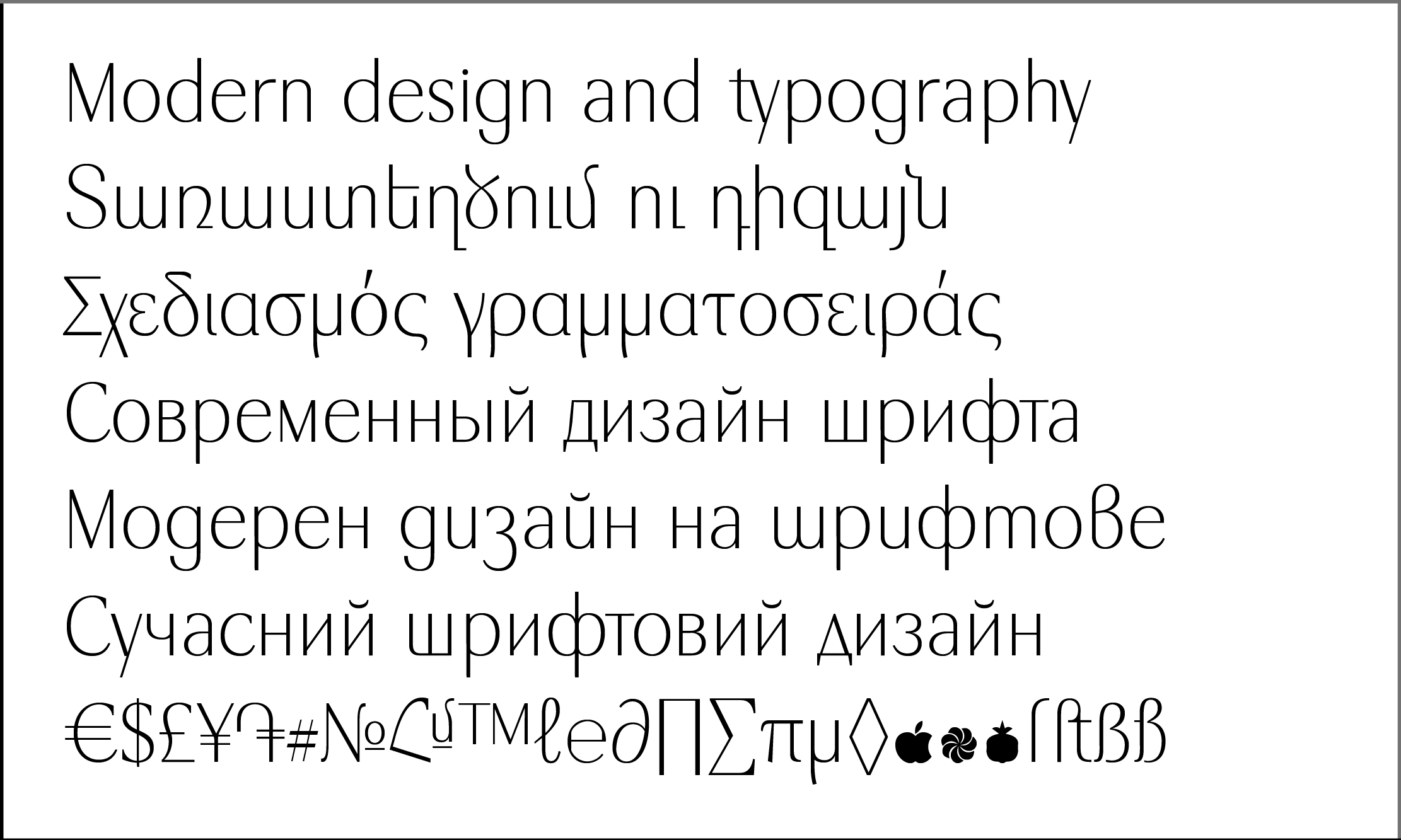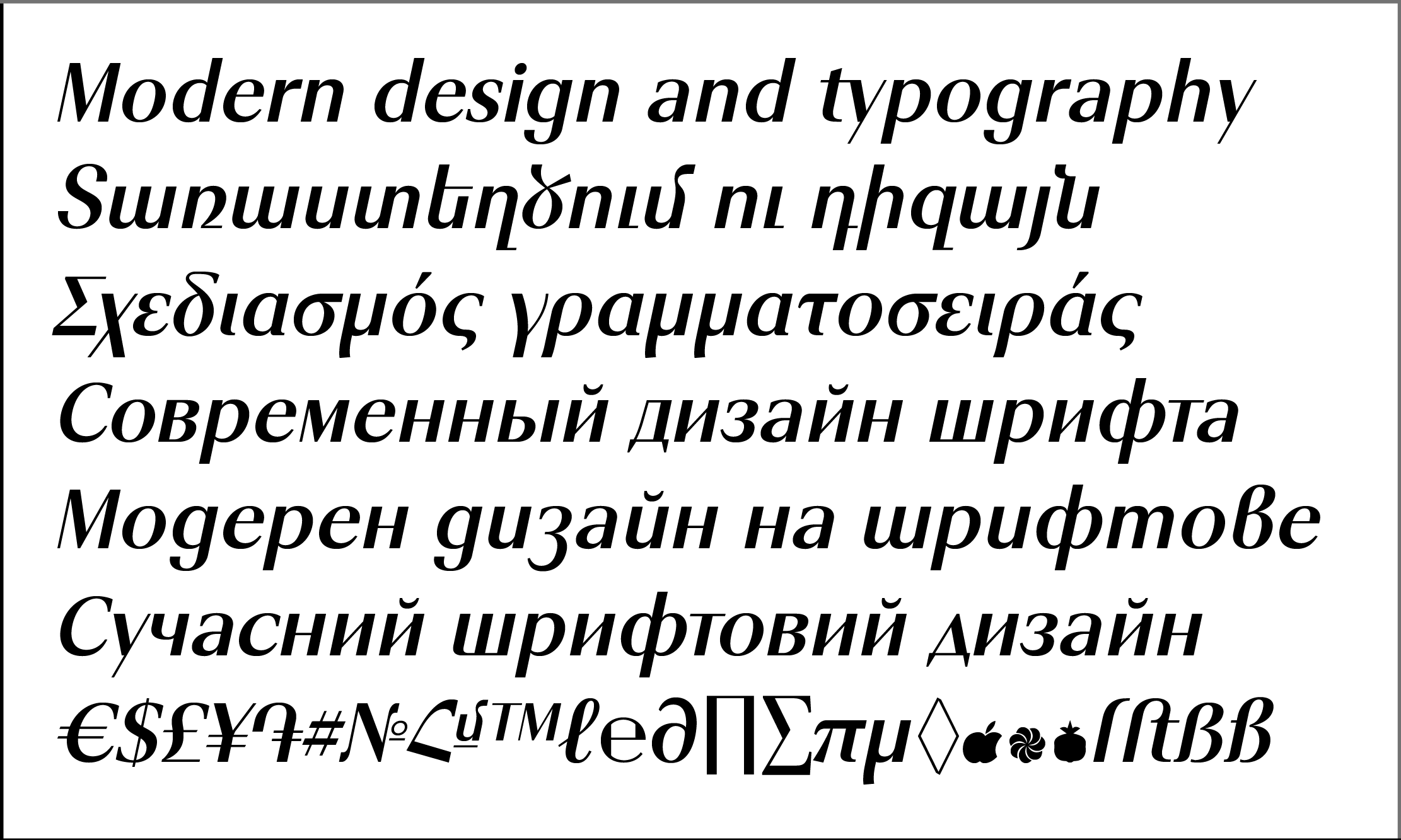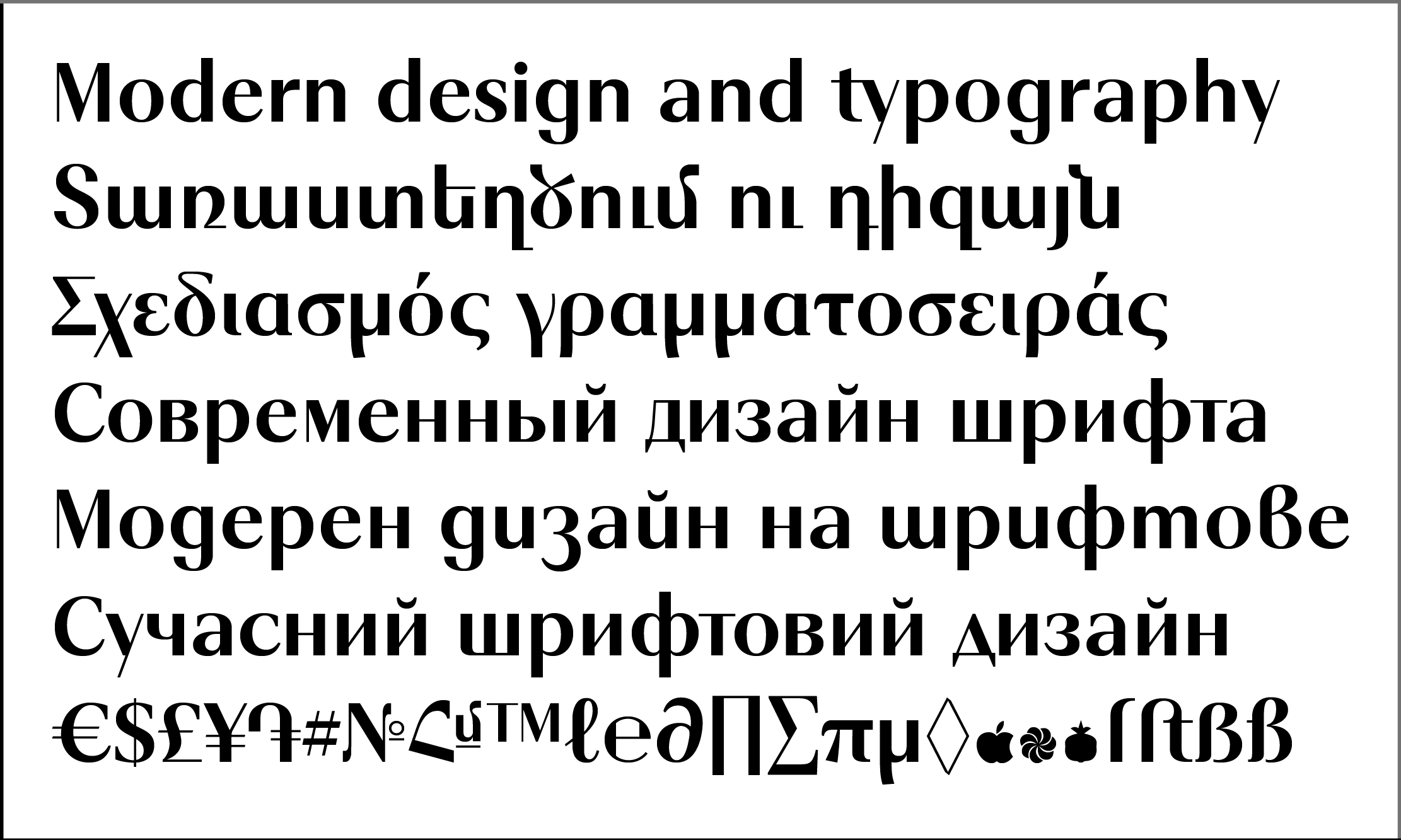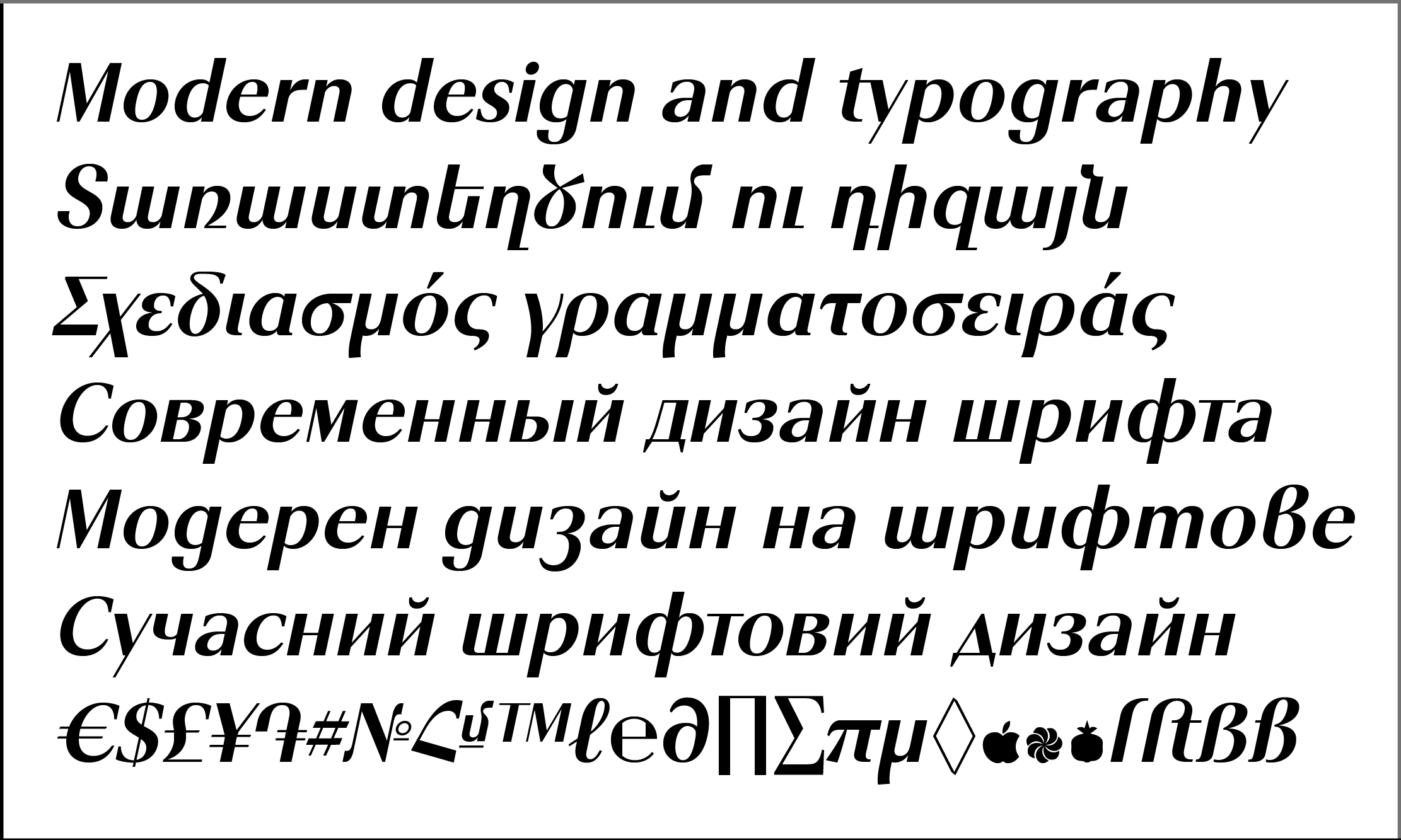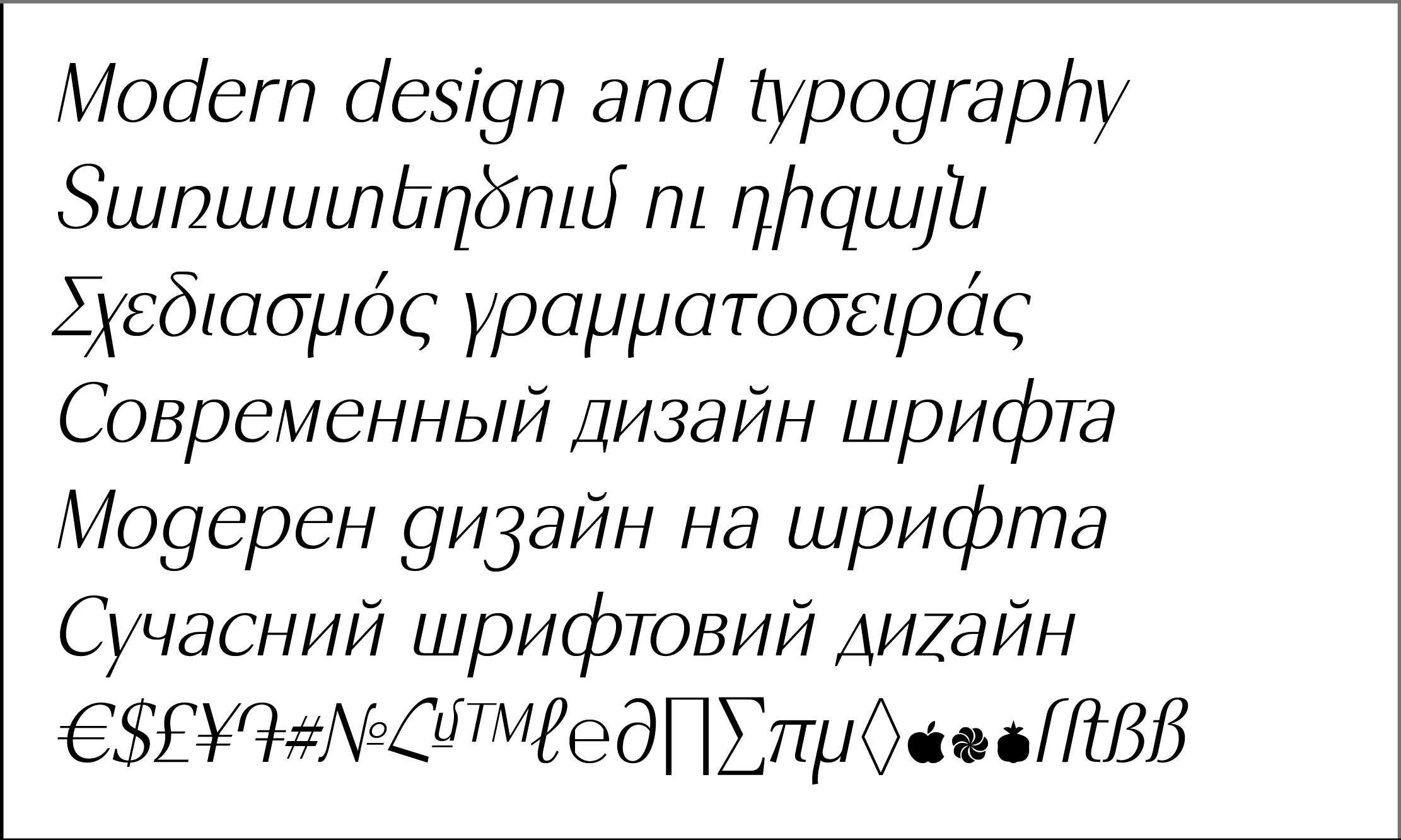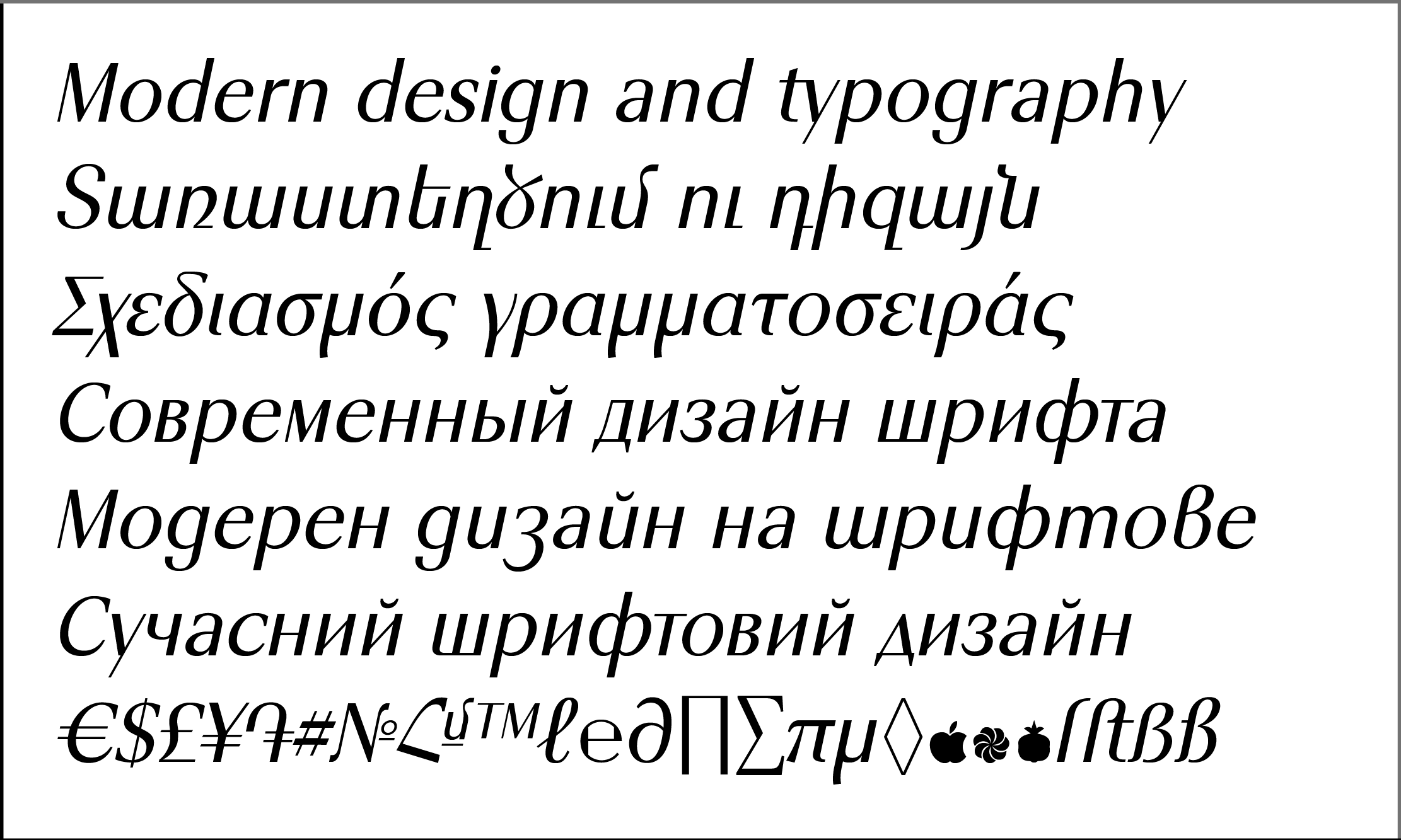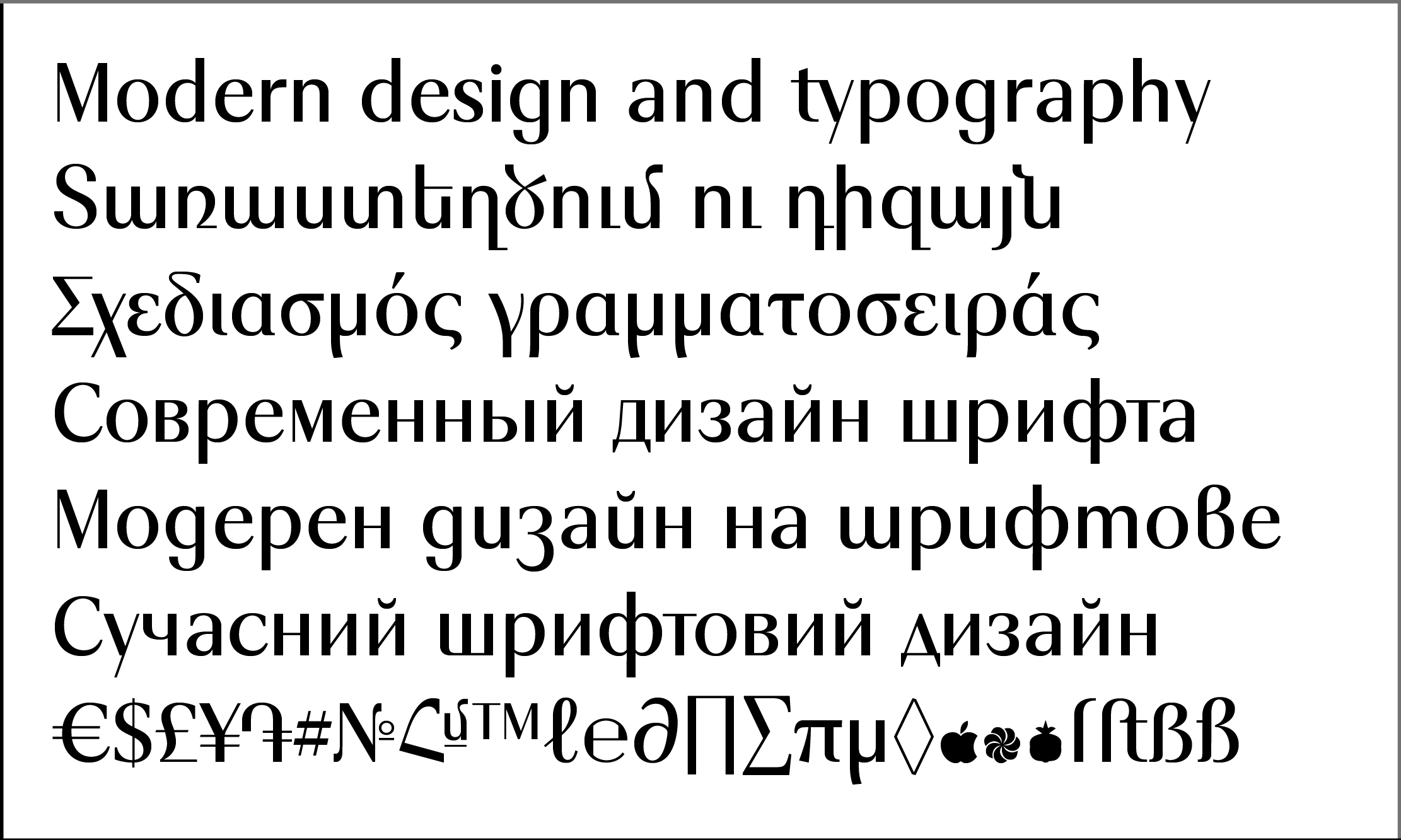
GHEA Arinberd
GHEA Arinberd is aText and Display font for using in titles, posters, advertisements and big
text.
It includes Armenian, Latin Pro, Cyrillic + Bulgarian and Ukrinian alternatives language systems.
The font includes 8 apright +8 Italic styles, Basic and many Advanced Ligatures for Latin and
Armenian.
GHEA Arinberd looks very nice in small and big sizes.